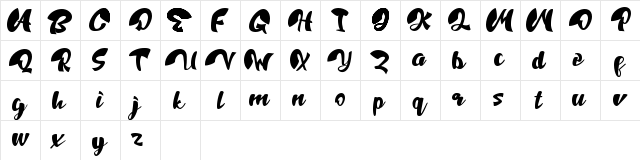
Handpick Regular
| Designer | Letterara 2019 |
Design Context for Handpick Typeface
Handpick flows with the natural rhythm of handwritten lettering, making it ideal for designs that call for warmth and personal expression.
Font Pairing: Combine Handpick with a simple geometric sans for maximum contrast — the tension between flowing curves and clean structure is a classic typographic pairing.
Pro Tip: Use Handpick for short runs of text — names, titles, or taglines. Extended body copy in script faces tires the eye quickly.